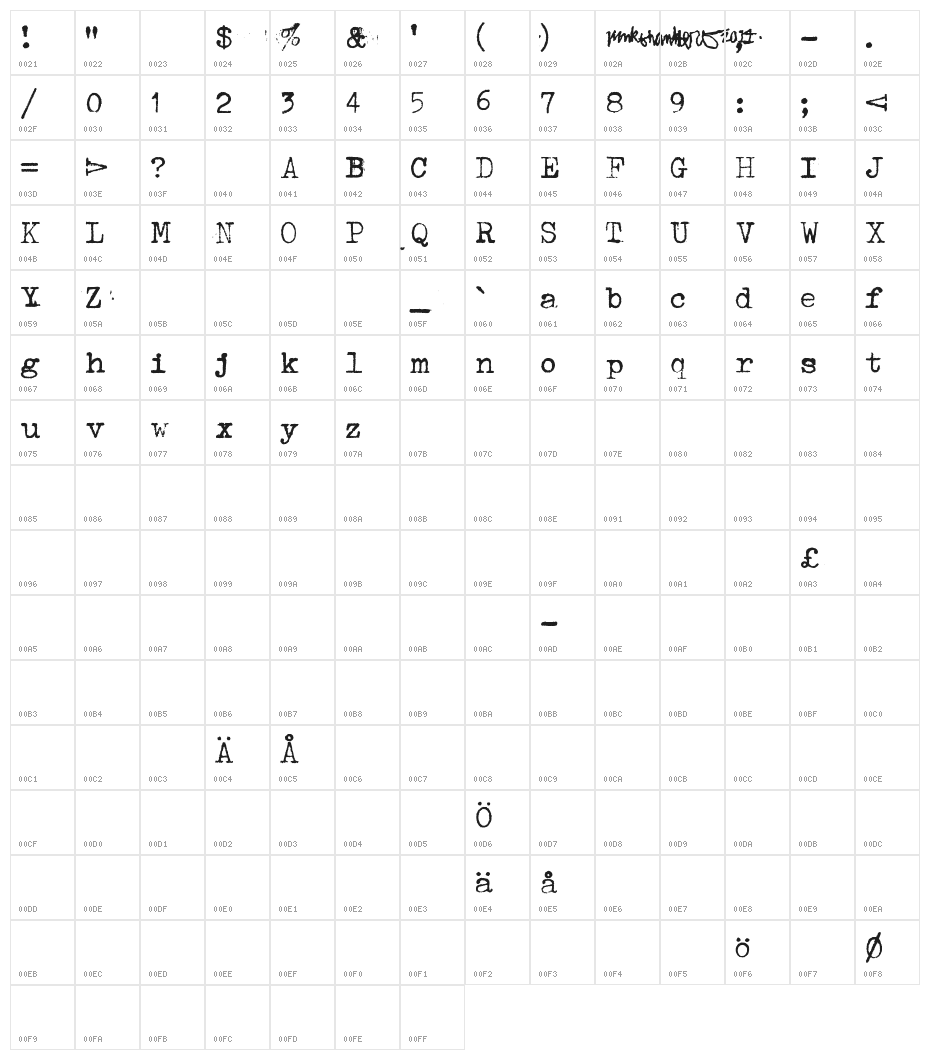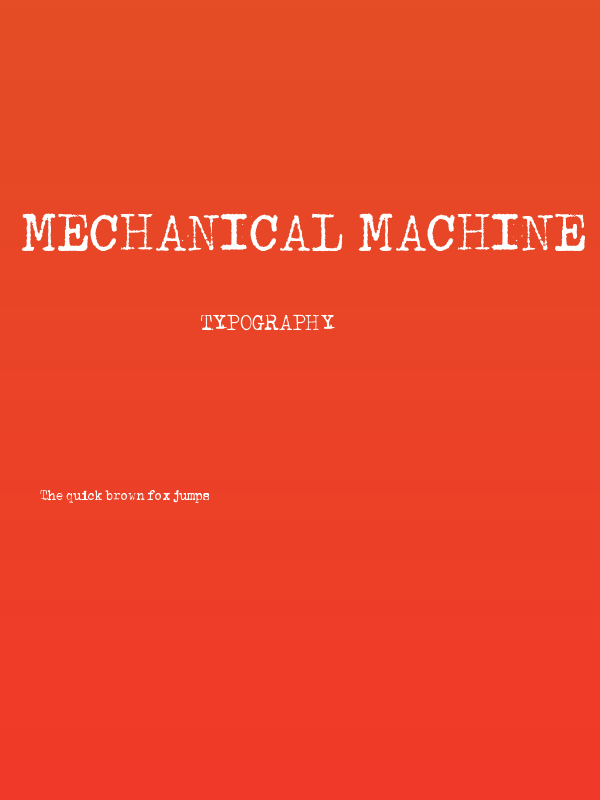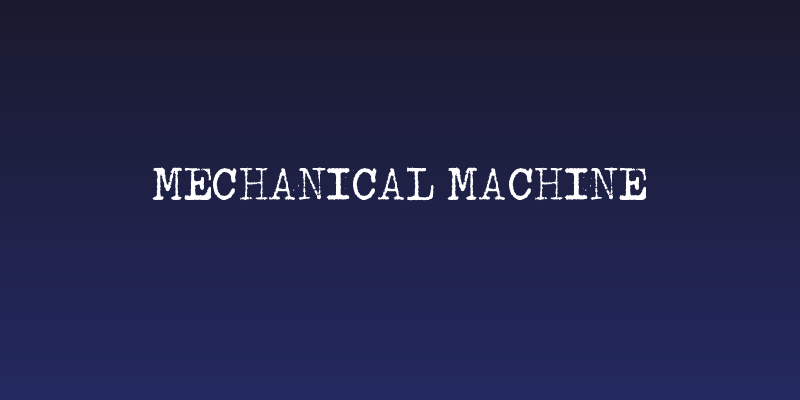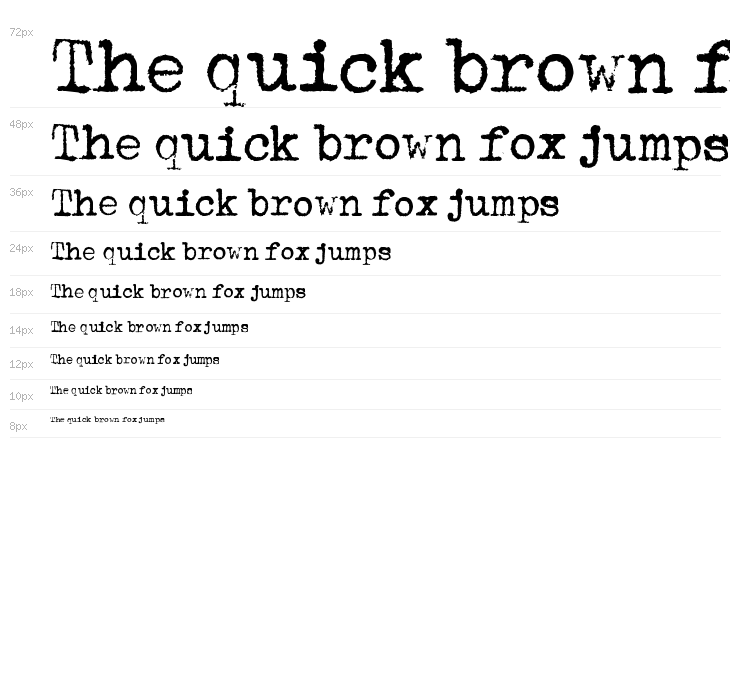
Mechanical Machine Font
| Gesamtstil | Vintage |
| Vorgeschlagene Projekte | Ideal for projects requiring a retro or industrial theme, such as vintage posters, historical documents, or branding for artisanal products. |